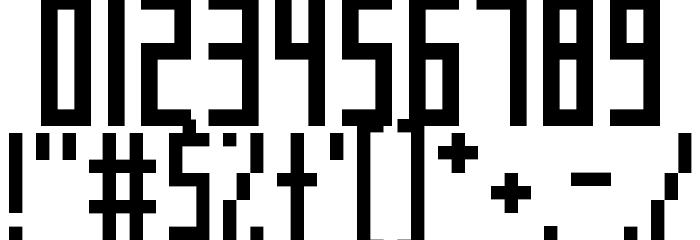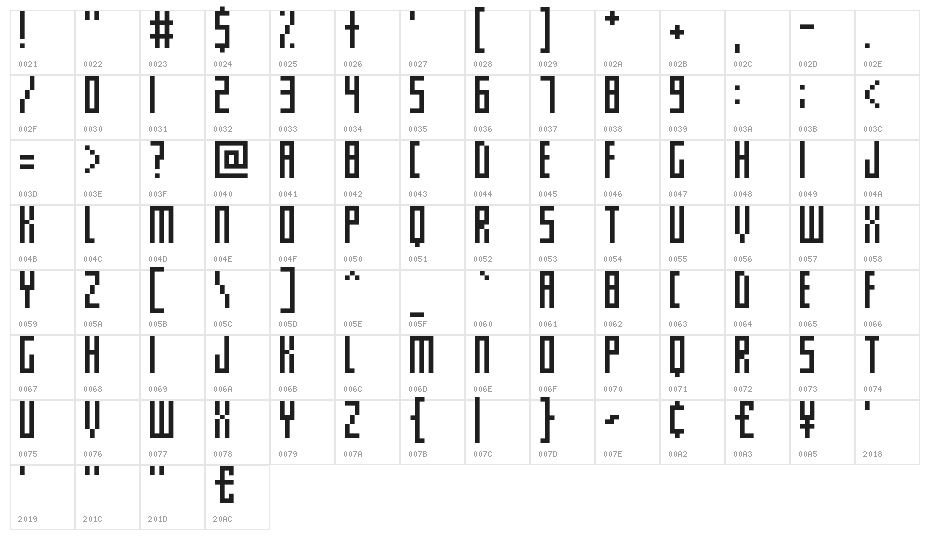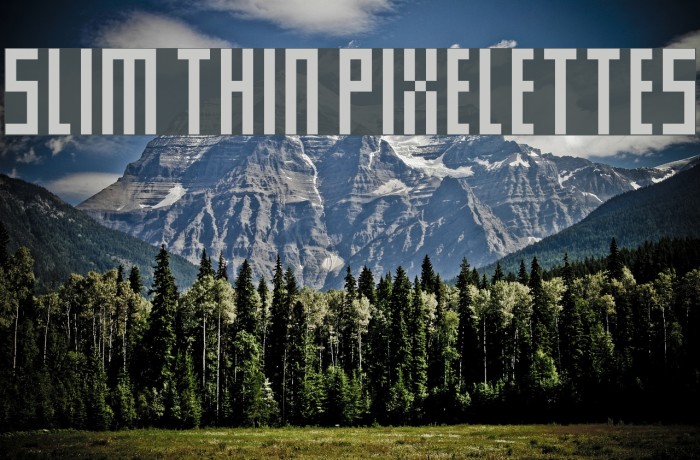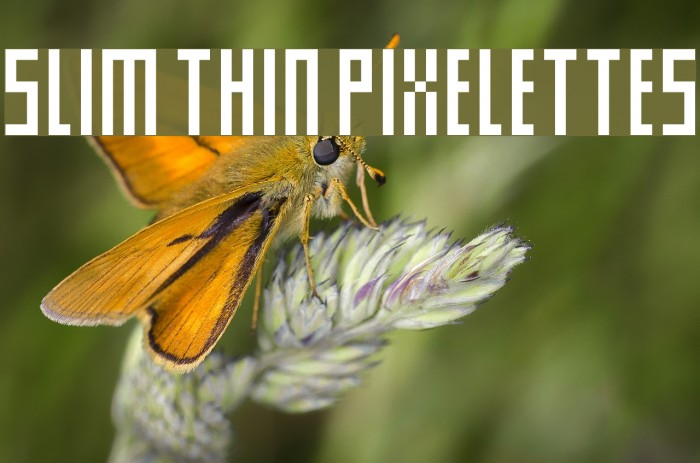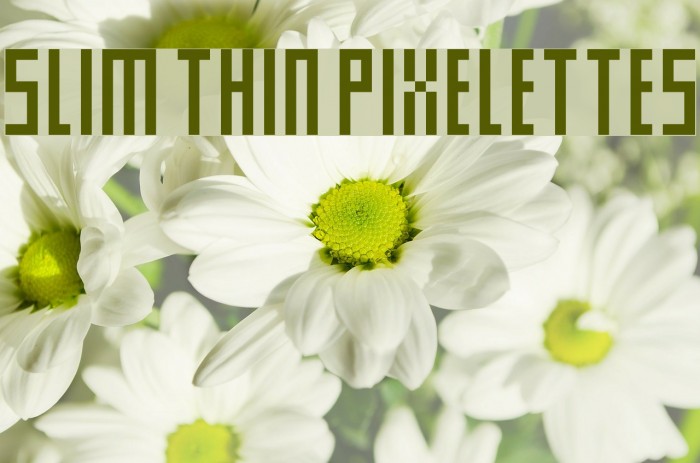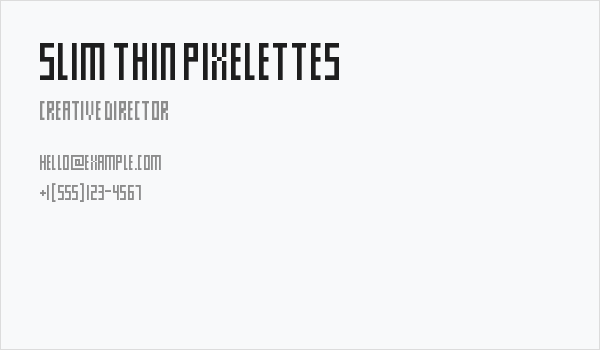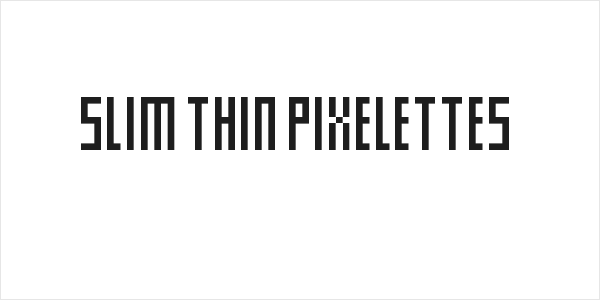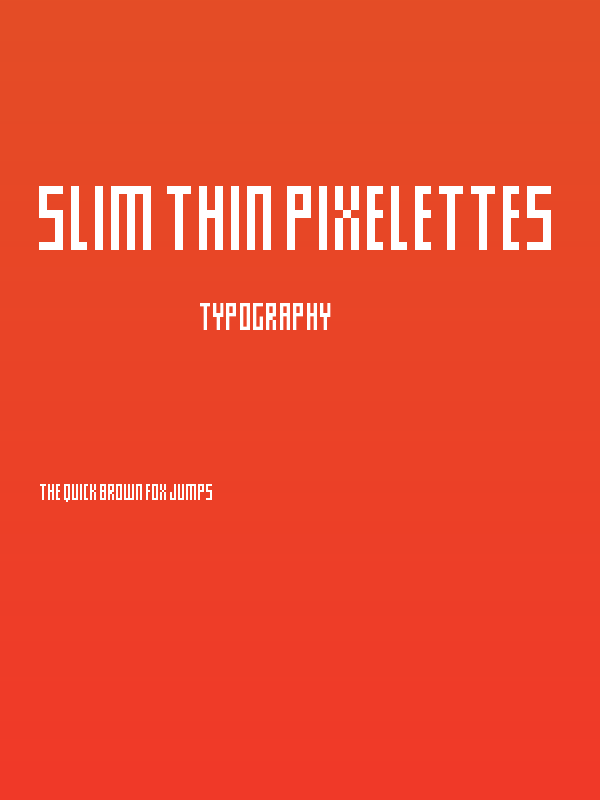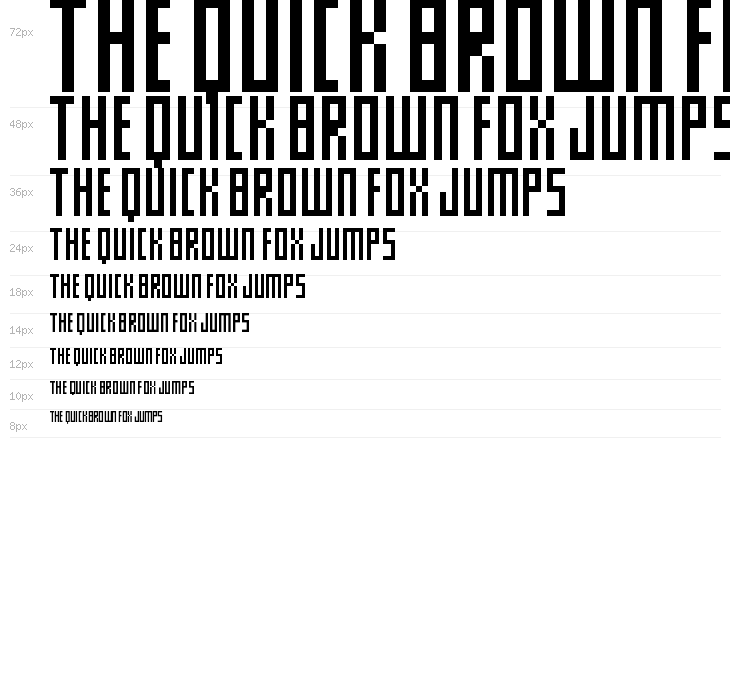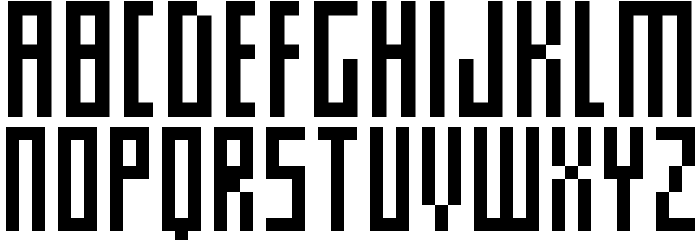
Slim thin pixelettes Font
Slim thin pixelettes Description
This font features a pixelated, blocky design that is reminiscent of early digital typefaces. Each character is constructed with a grid-like precision, giving it a distinctly retro, digital aesthetic. The uppercase and lowercase letters maintain a consistent height, contributing to a uniform appearance. The numerals and special characters follow the same pixelated style, ensuring cohesive visual harmony across all glyphs. The font's geometric structure and sharp edges make it ideal for projects that aim to evoke a sense of nostalgia or a digital theme.